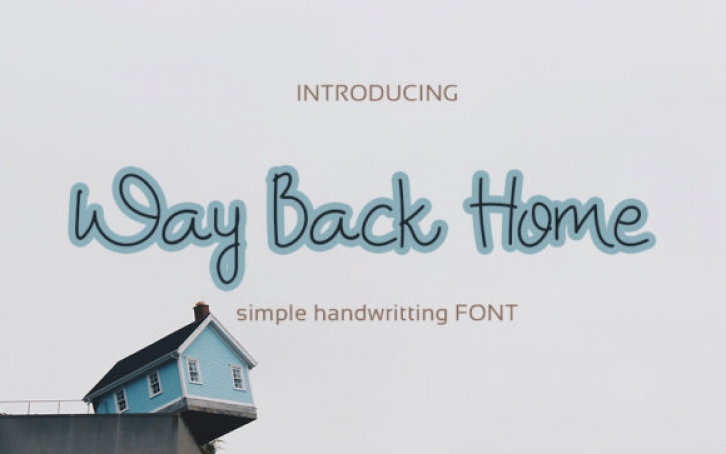
Way Back Home is a unique handwritten font. Whether you’re looking for fonts for Instagram or calligraphy scripts for DIY projects, Way Back Home will turn any creative idea into a true piece of art!